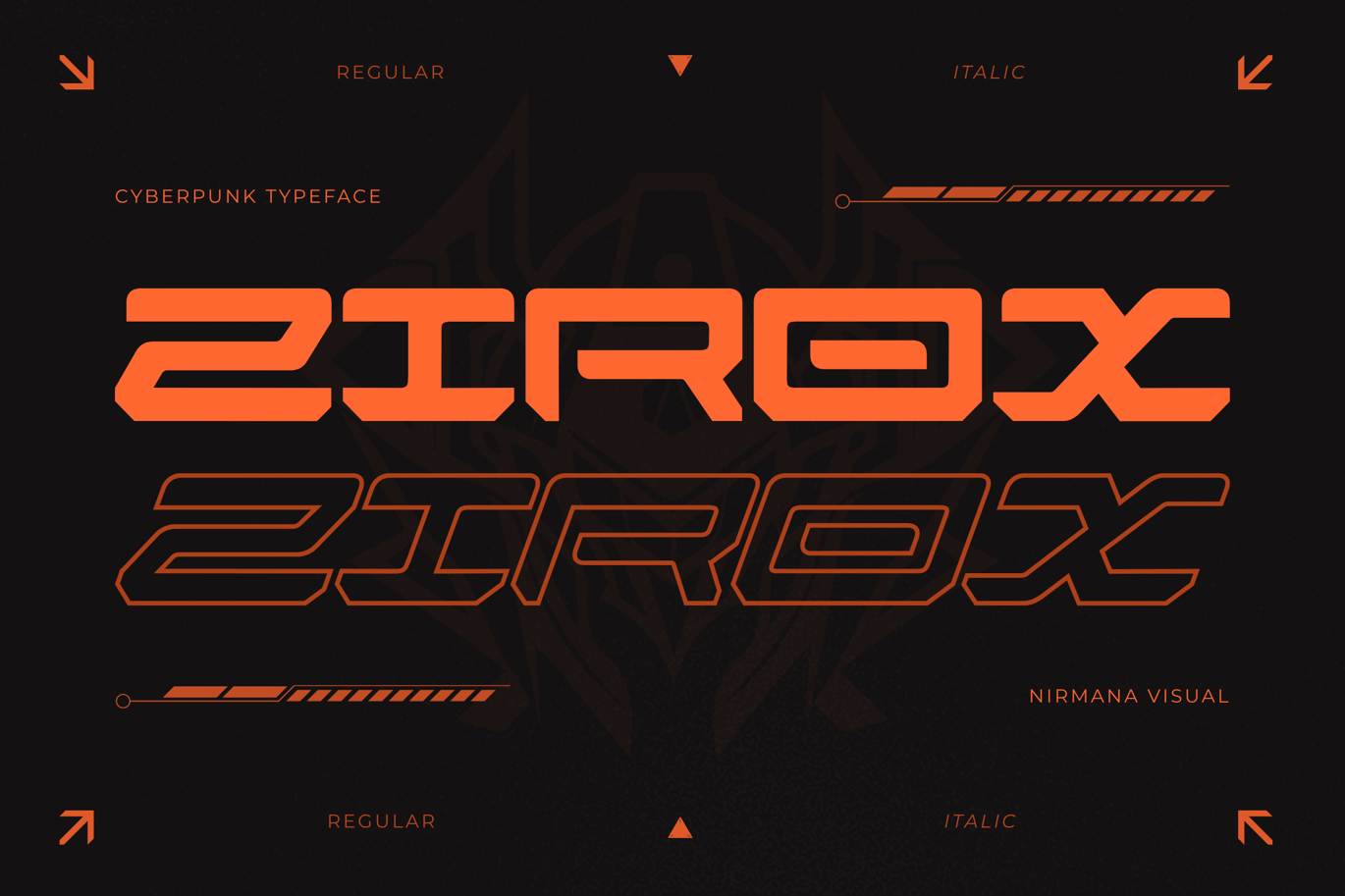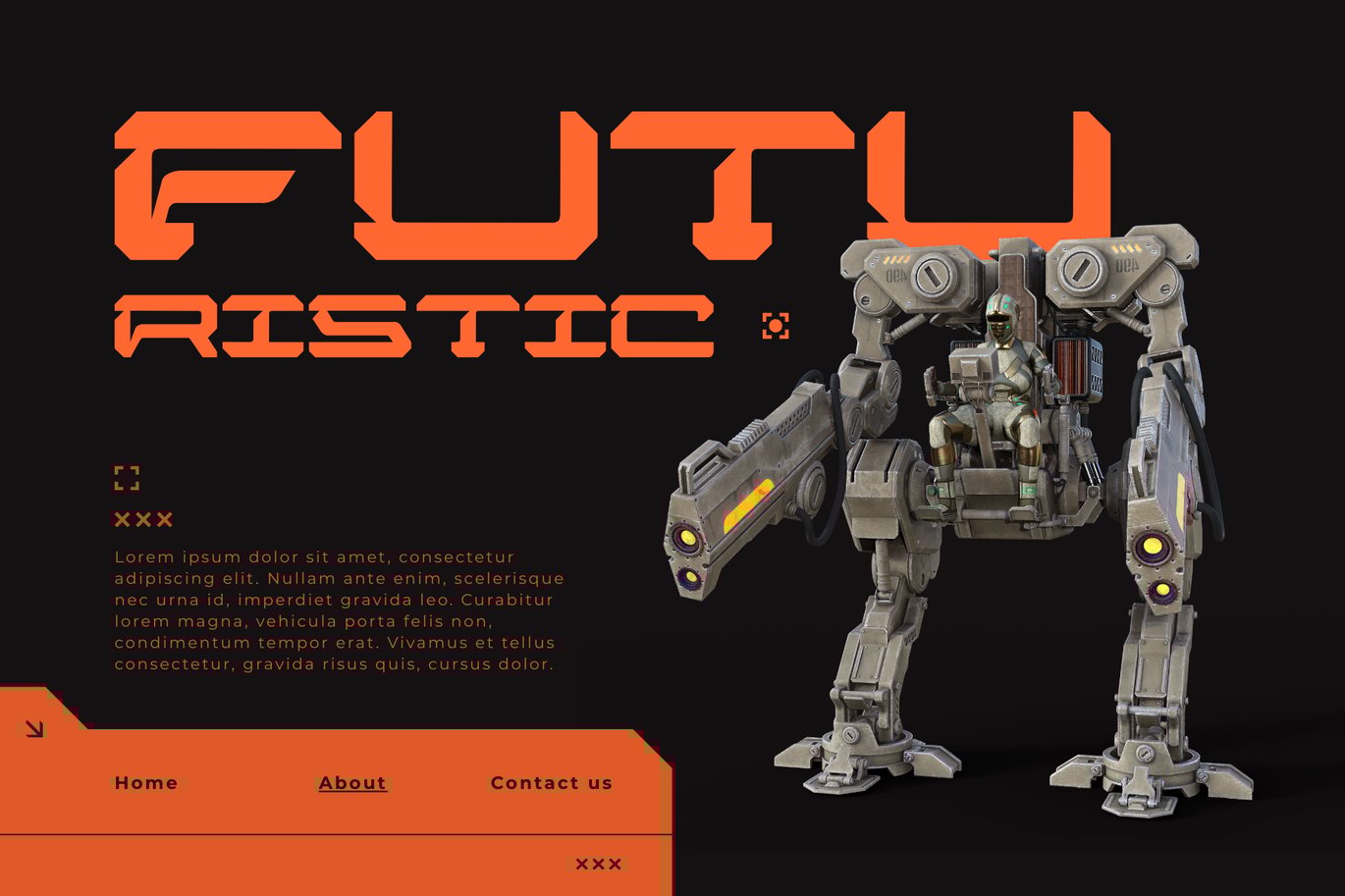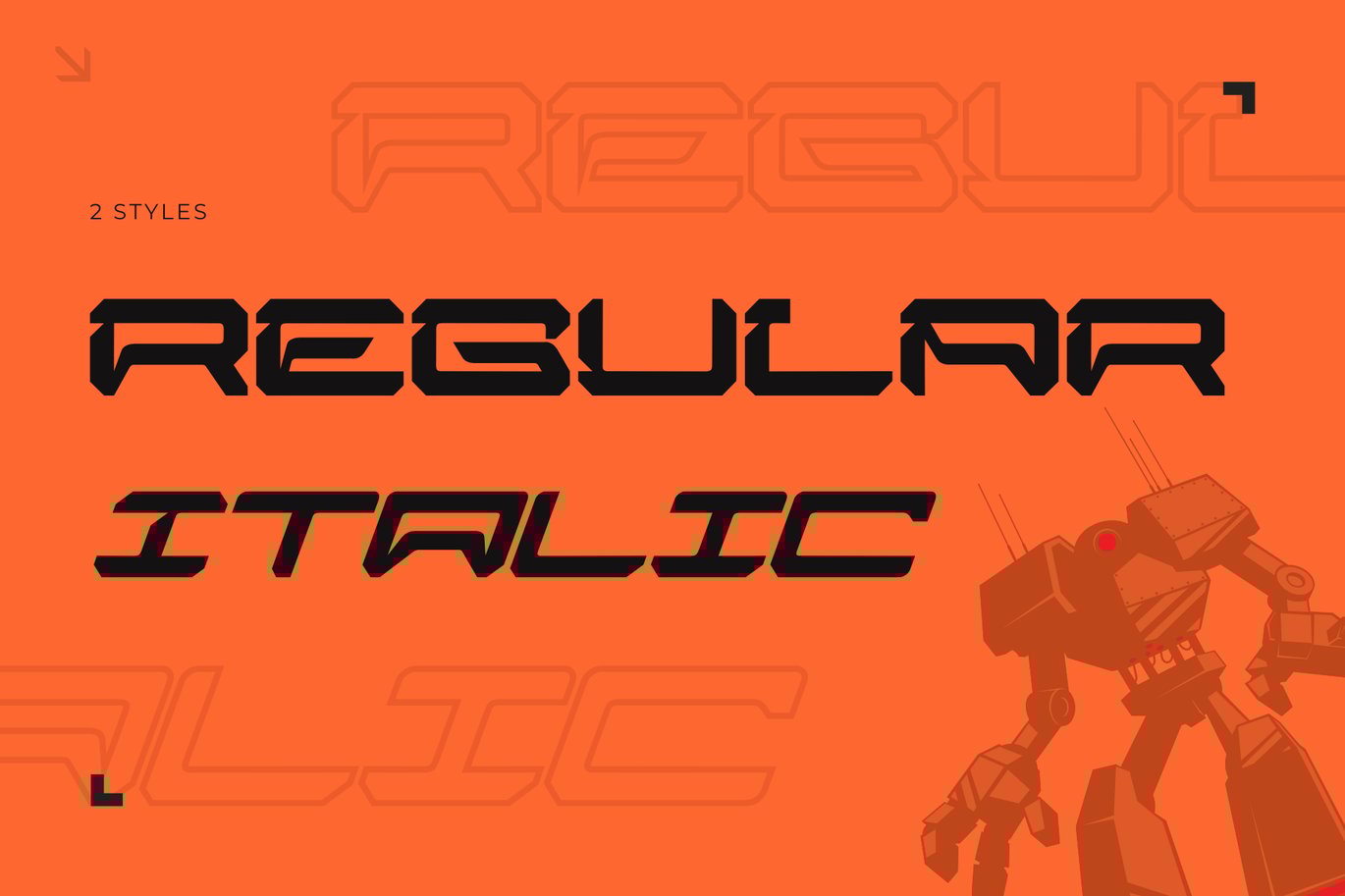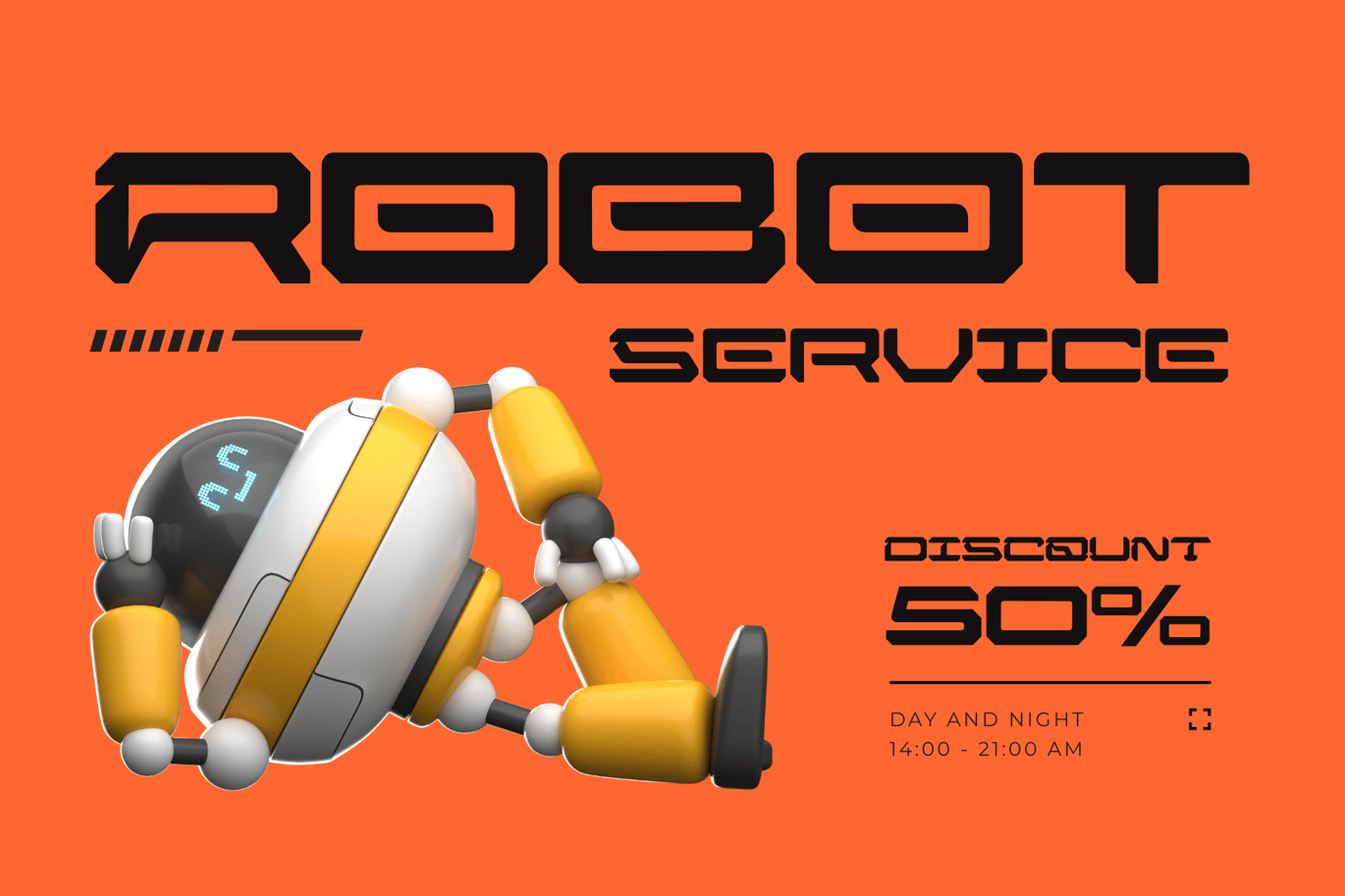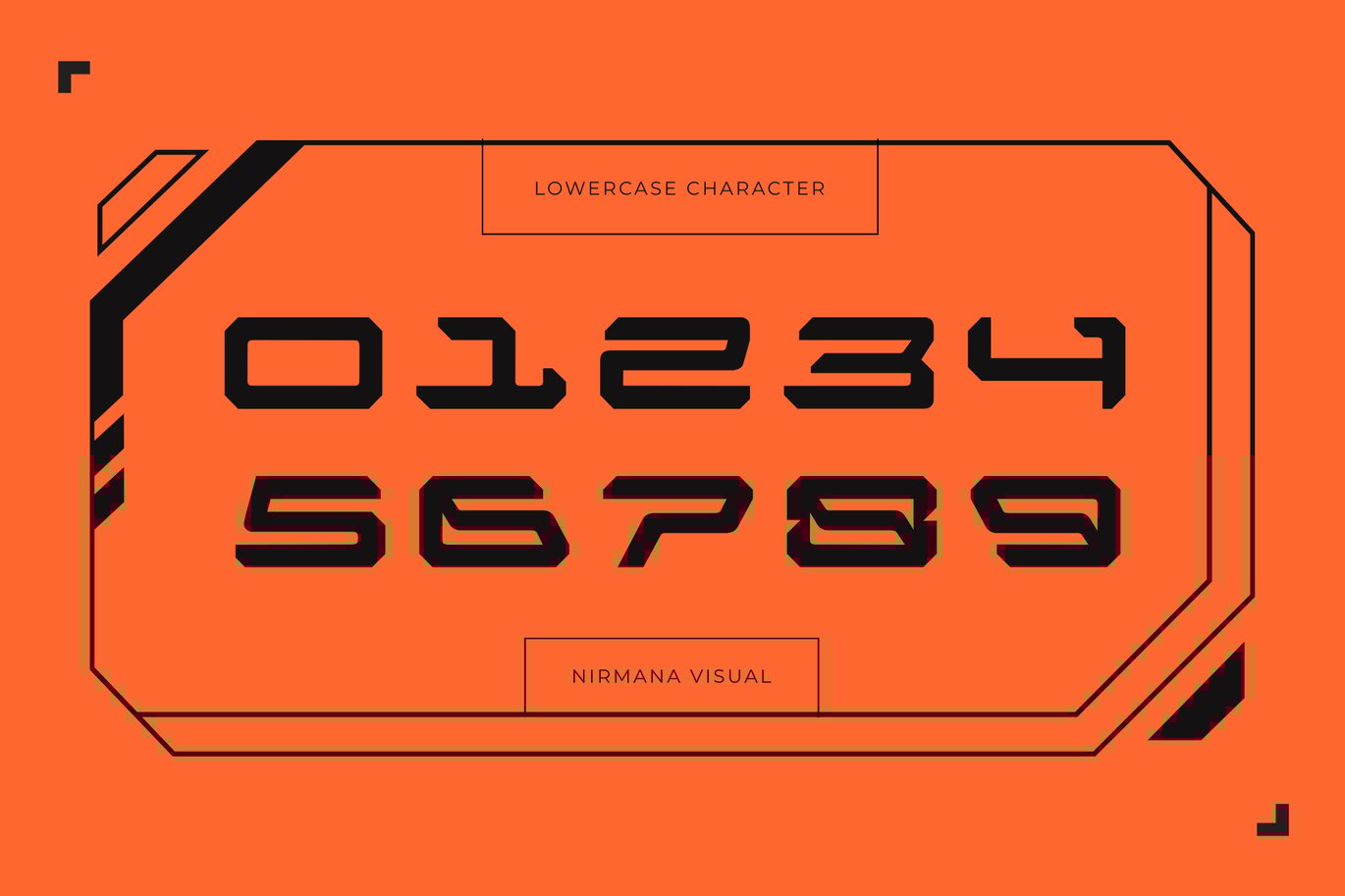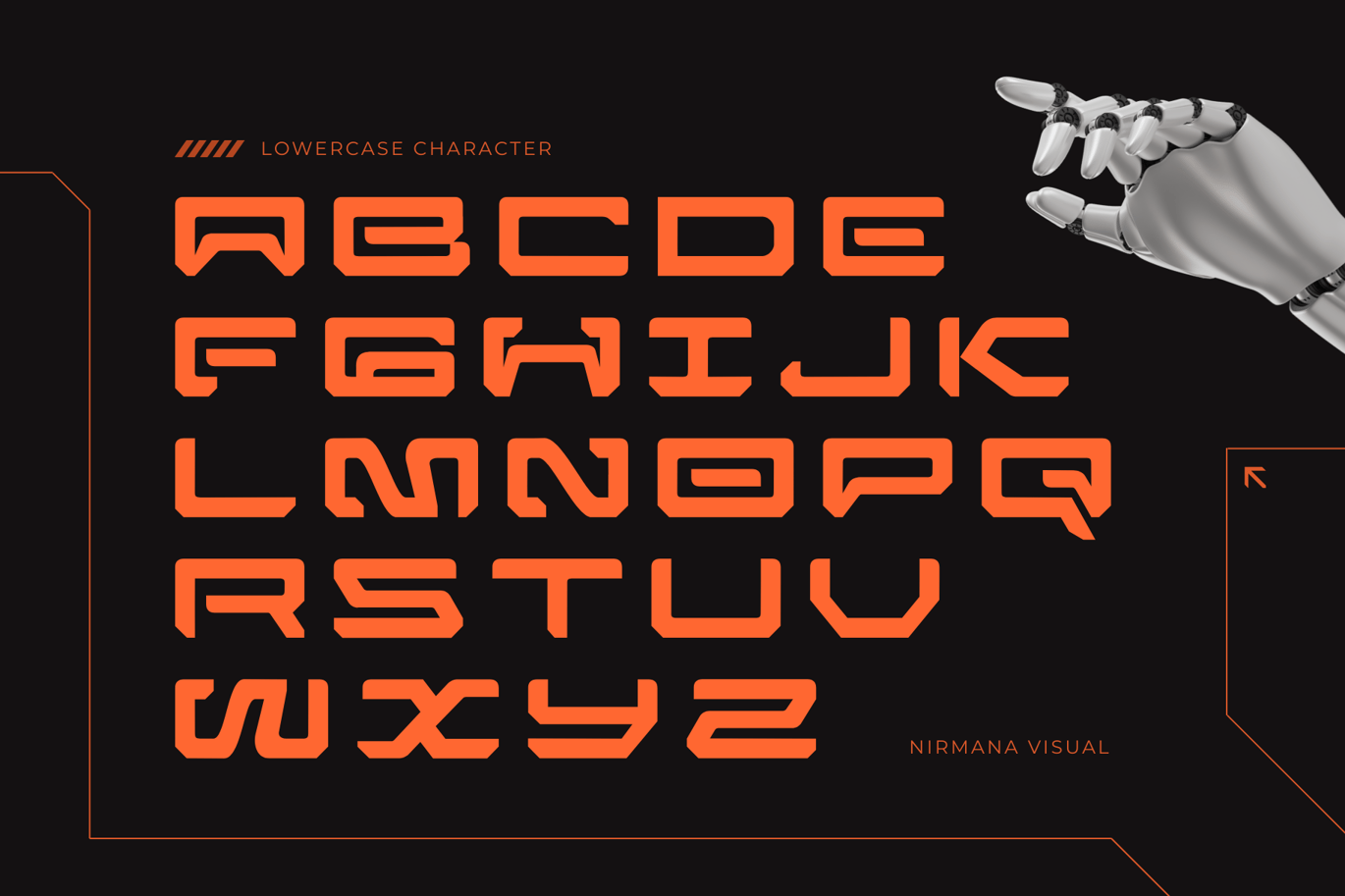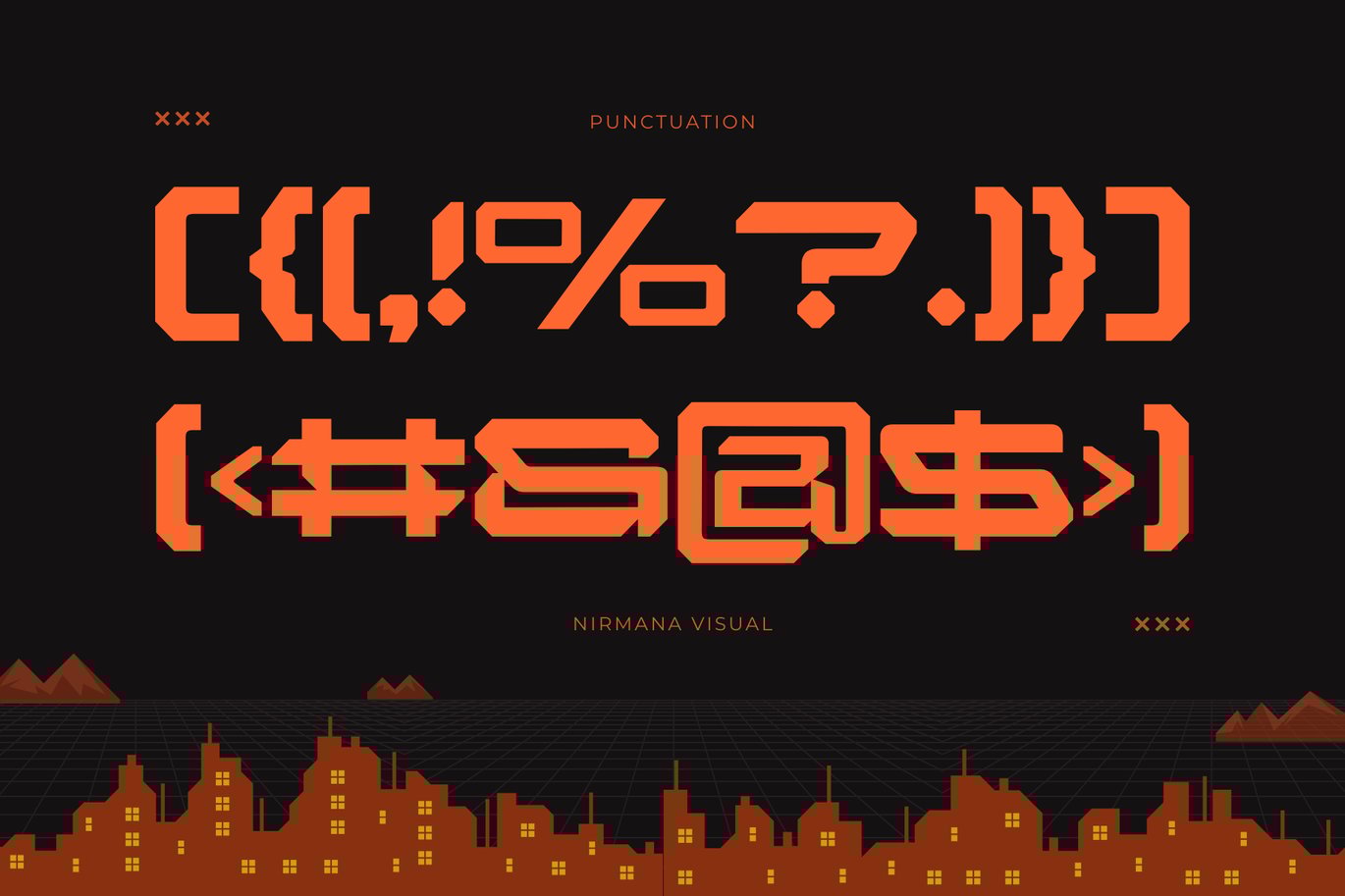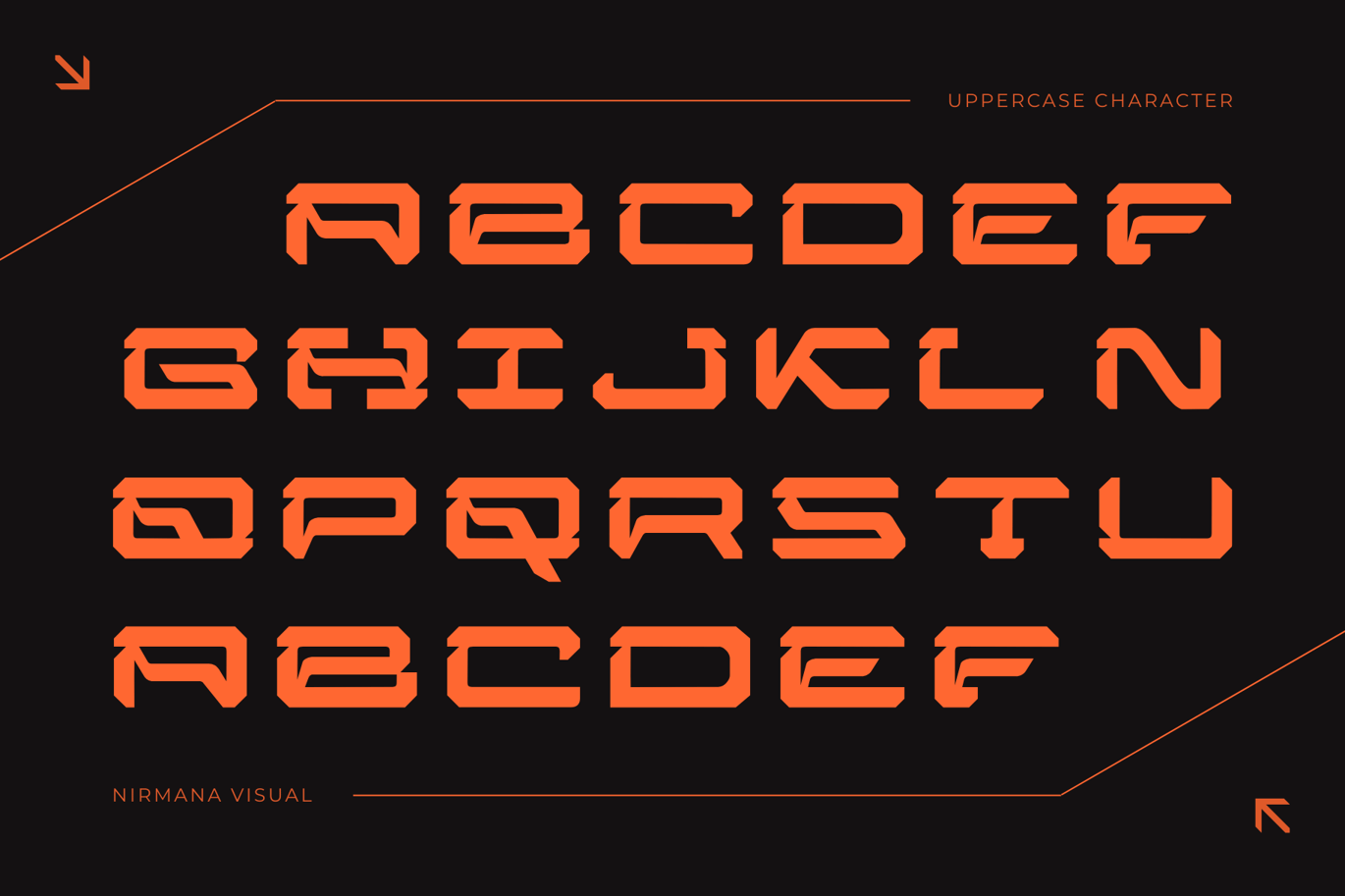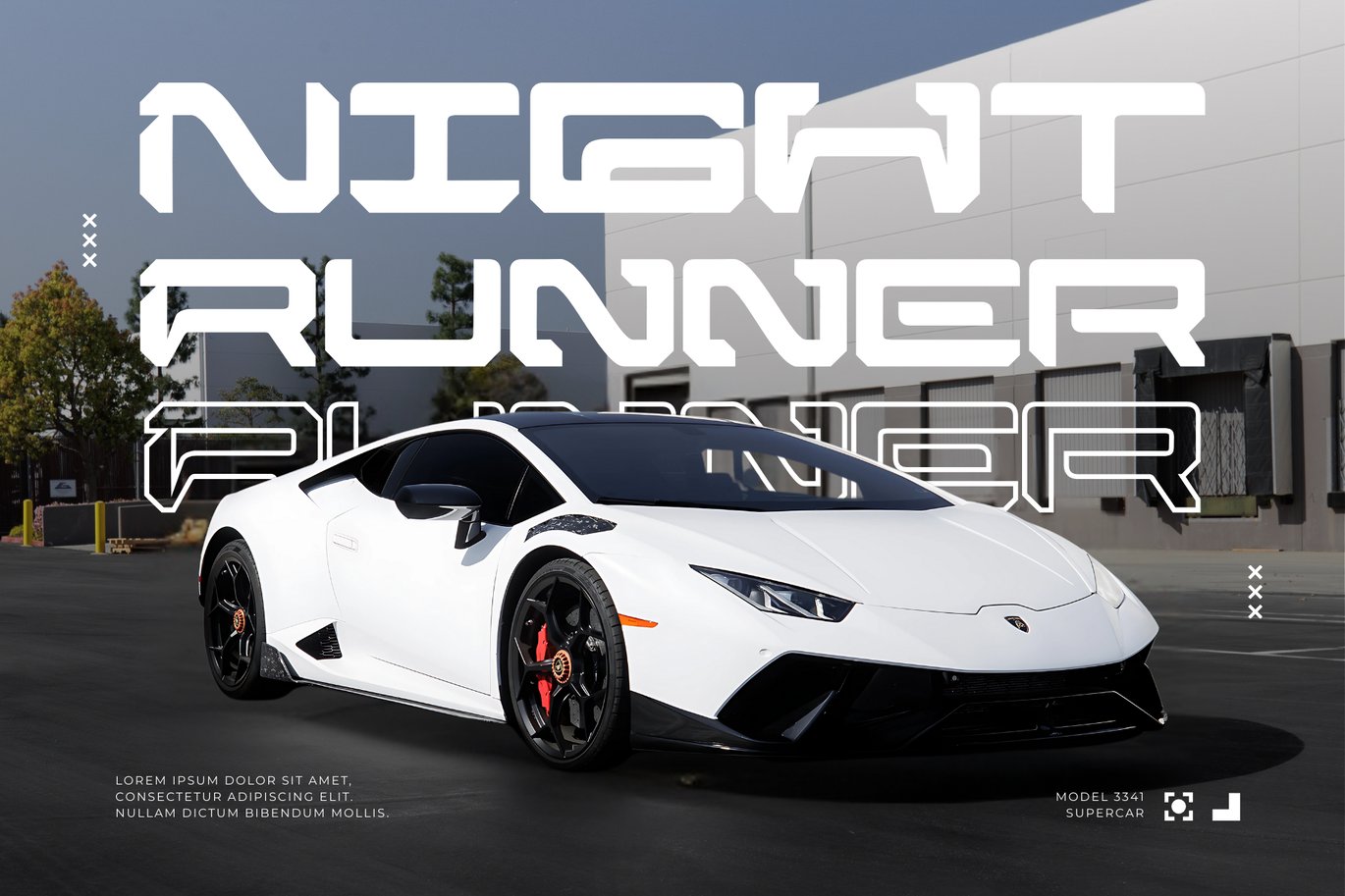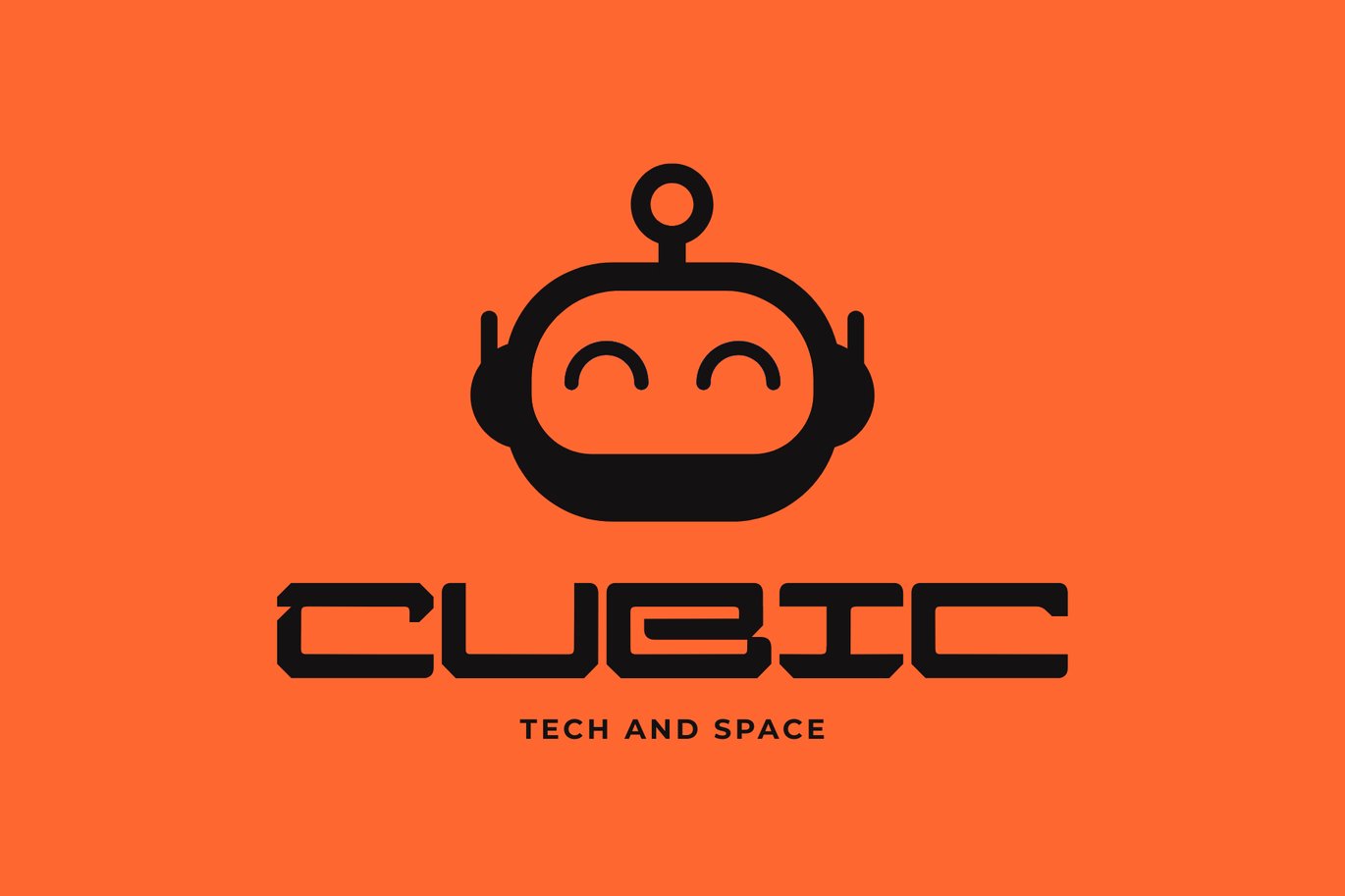
Zirox Cyberpunk – Branding Logo Font
Zirox Cyberpunk offers beautiful typographic harmony for a diversity of design projects, including logos & branding, social media posts, advertisements & product designs.